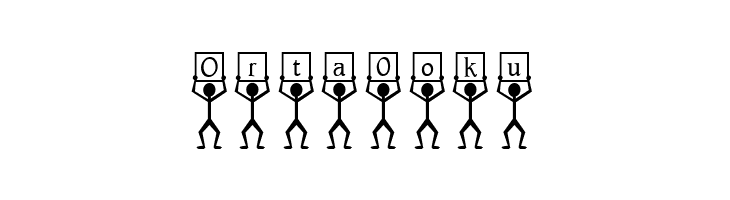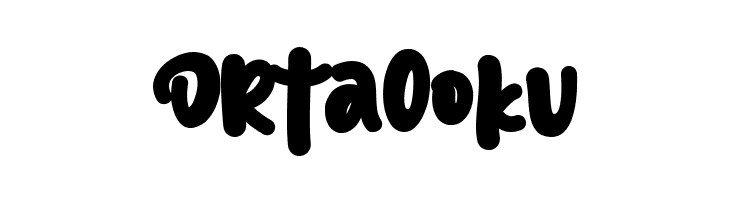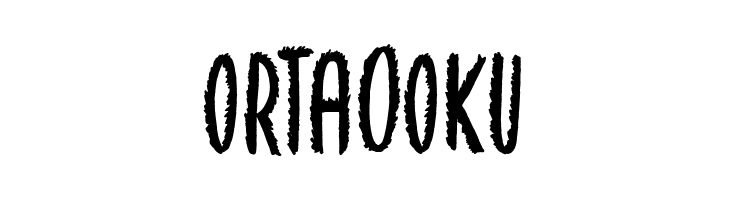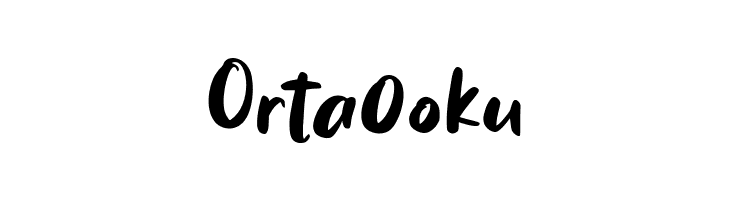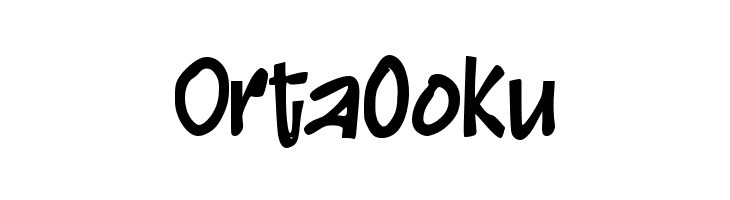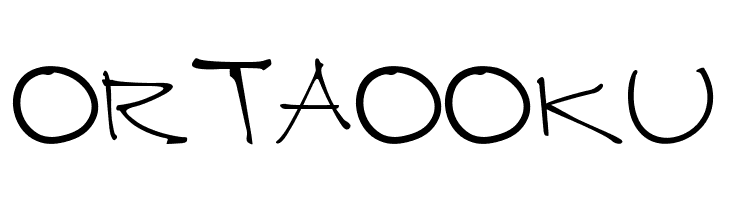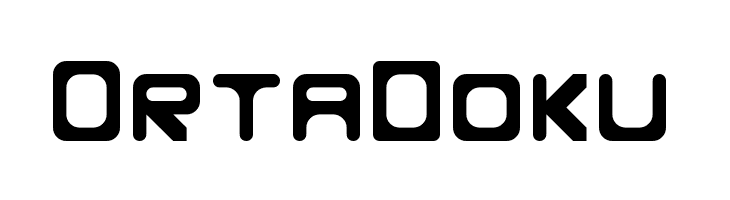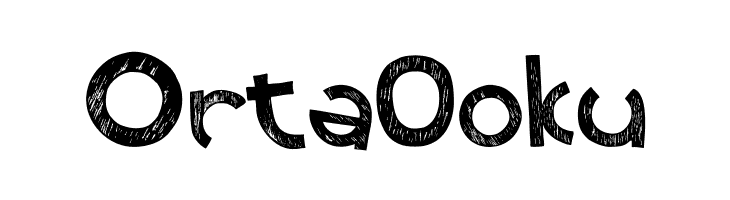
A bold, dynamic script font with interconnected, flowing characters.
A modern, readable typeface with elegant stroke contrast.
A bold, italic font with a modern and elegant style.
A classic serif font with elegant strokes and balanced proportions.
A classic serif font with elegant strokes and refined details.
A classic serif font with elegant lines and distinct serifs, perfect for formal uses.
A bold, geometric font with rounded edges and consistent line thickness.
Playful handwritten script font.
A whimsical, elegant cursive font with intricate loops and swirls.
A bold, high-contrast font with a dynamic and striking appearance.
A flowing, cursive font with elegant curves and a dynamic slant.
An ornate and decorative font with a medieval, gothic style.
A graceful and elegant script font with fluid, connected letters.
A whimsical and decorative font with ornate, curvy characters.
An elegant, cursive font with flowing, handwritten style.
An elegant and decorative script font with ornate loops and swirls.
A bold, decorative font with a tattoo-inspired, edgy aesthetic.
A bold, decorative font with intricate tattoo-inspired detailing.
A sharp, thorny font with an edgy, intense design.
A playful, bold handwritten font with rounded, irregular letterforms.
A playful, handwritten font with bold, energetic strokes and a friendly feel.
A playful, hand-drawn font with letters in circular shapes, perfect for creative projects.
A graceful cursive font with an elegant, handwritten style.
A playful, handwritten font with a whimsical and friendly style.
A bold, playful font with rounded and angular elements, offering a modern yet retro charm.
A dynamic script font with sharp, angular strokes and a modern, edgy style.
A lively, handwritten cursive font with a dynamic and expressive style.
A dynamic and elegant script font with flowing, cursive letterforms and intricate flourishes.
Handwritten, playful sans-serif with tall, narrow letters.
A whimsical, cursive font with elegant loops and swirls.
A bold, expressive handwritten font with dynamic strokes.